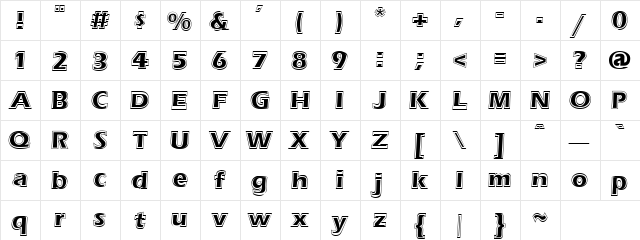
Semolina Contour Regular
Design Context for Semolina Contour Typeface
Semolina Contour offers clean, dependable letterforms without strong stylistic allegiance, making it a practical choice for designers who need flexibility.
Pro Tip: Use Semolina Contour in both headline and body roles to test its range before committing to a single application.